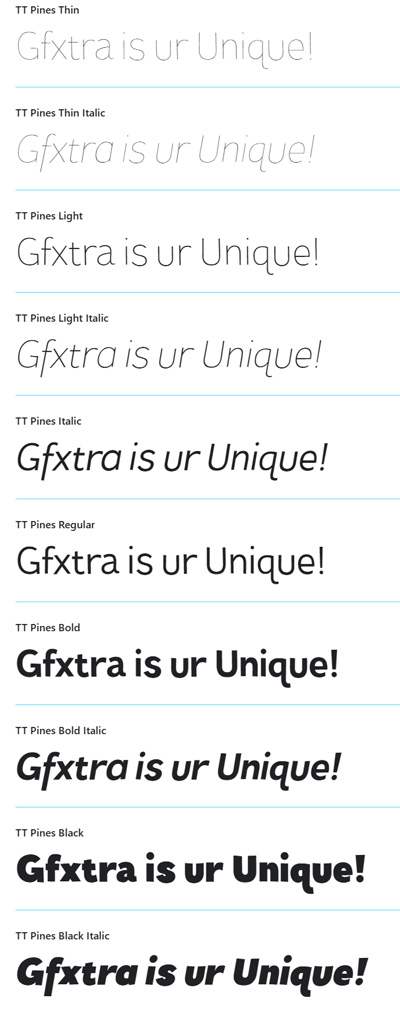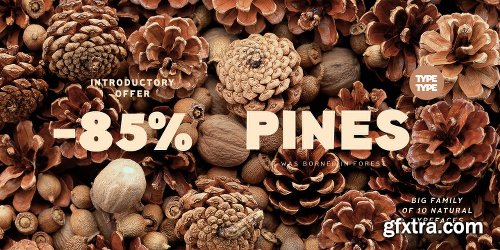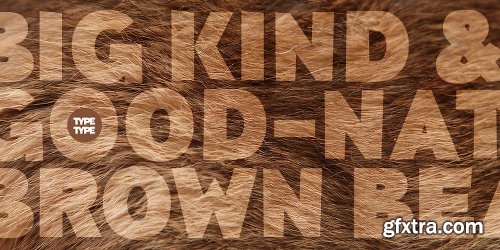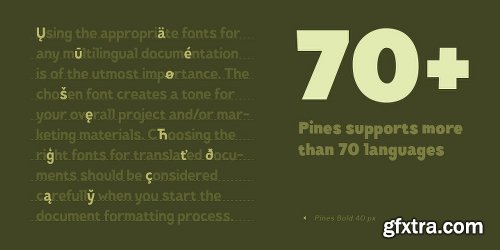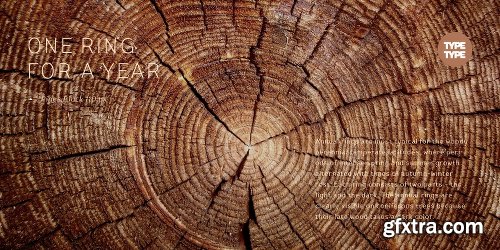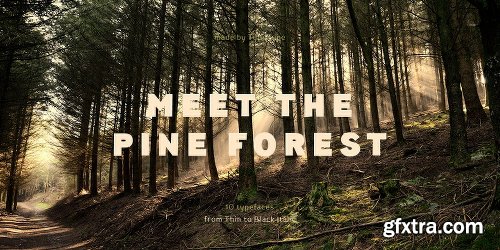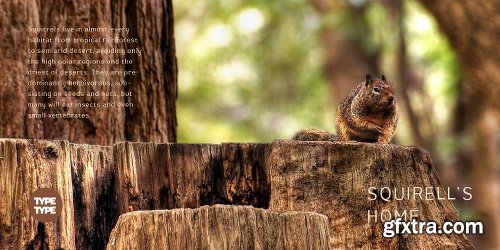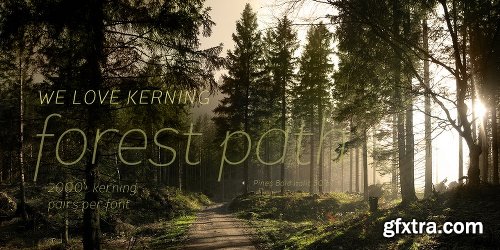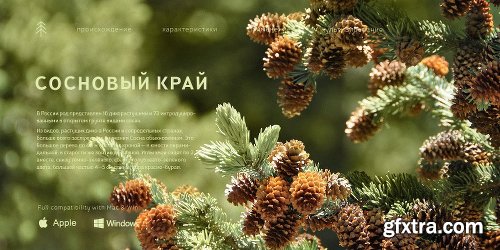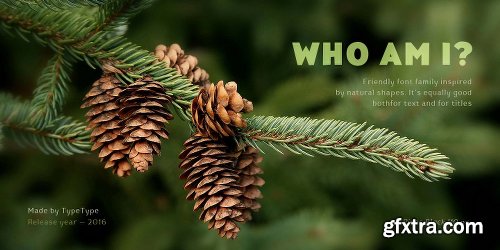
- Imagine you've decided to cut letters out of paper thereby creating a modern sans-serif for a broad application range. What result would you get? We already know the answer! TT Pines is a fontfamily that we've carefully cut out of paper and then added lots of emotions and a few bright natural accidental details. Now you can create any text layouts and contemporary design with special warmth and friendliness that was inspired by paper. TT Pines fontfamily is great for any ecological design theme. Use if for websites, hand-made items, and eco-friendly products packaging. Our fontfamily is also great for ecological brand identity and navigation. We've named the font family TT Pines since it perfectly integrates into the natural environment and looks authentic and harmonious as if it came from the pine forest itself.